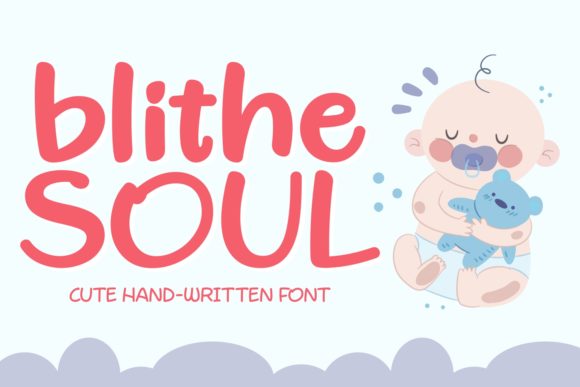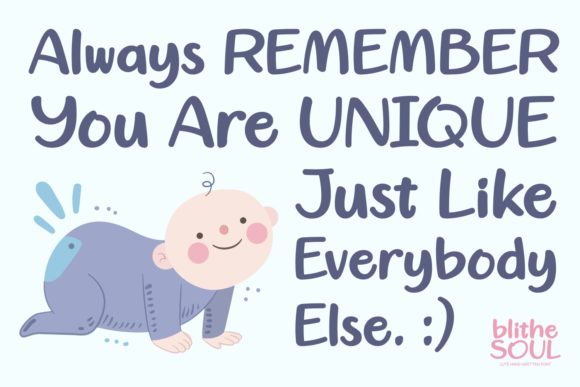
Blithe Soul Font
About Blithe Soul Font
Blithe Soul is a cute and happy handwritten font.
It is perfect for kids related designs and it will give your next project charm and style.